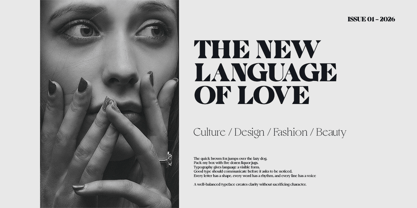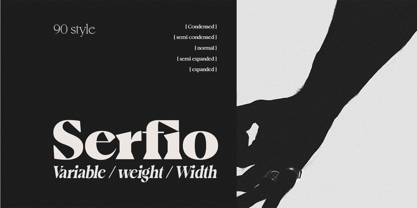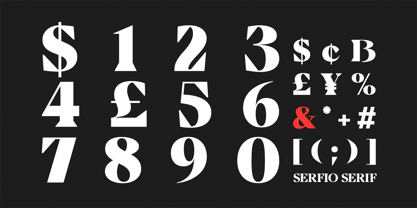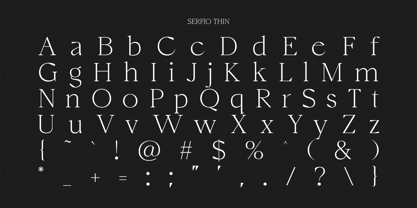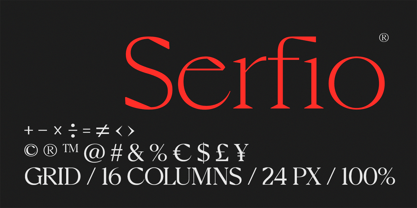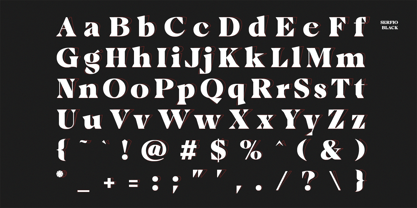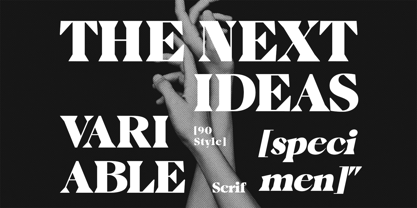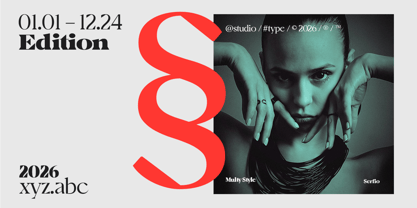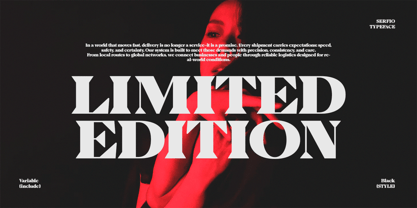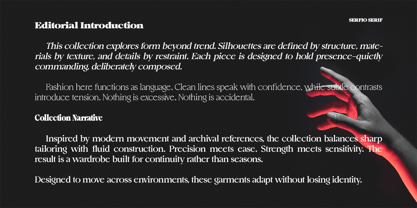
Serfio
La famille de polices Serfio a été conçue par Cut Fina Sataji et publiée par Dorado Foundry. Serfio contient 178 styles et options de package familial. En savoir plus sur cette famille
Serfio is an elegant and warm serif typeface with a classic feel. This typeface is designed to enhance credibility.
It includes 170 fonts, both upright and italic, ranging from light to black. It also includes one variable font. OpenType features allow for the implementation of typography such as ligatures and support for multiple languages.
A good choice for branding, magazines, posters, advertisements, print, packaging, headlines, web design, and more.